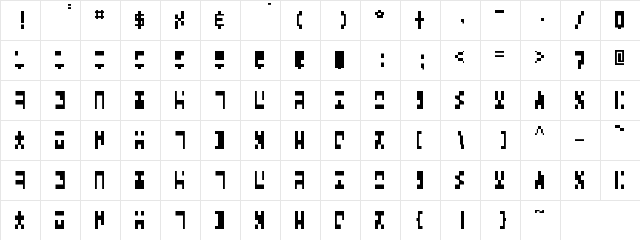
aaAncient Regular
| Designer | QingDa Zou |
Design Context for aaAncient Typeface
aaAncient is a composed and adaptable typeface that performs quietly and consistently across a wide range of design contexts.